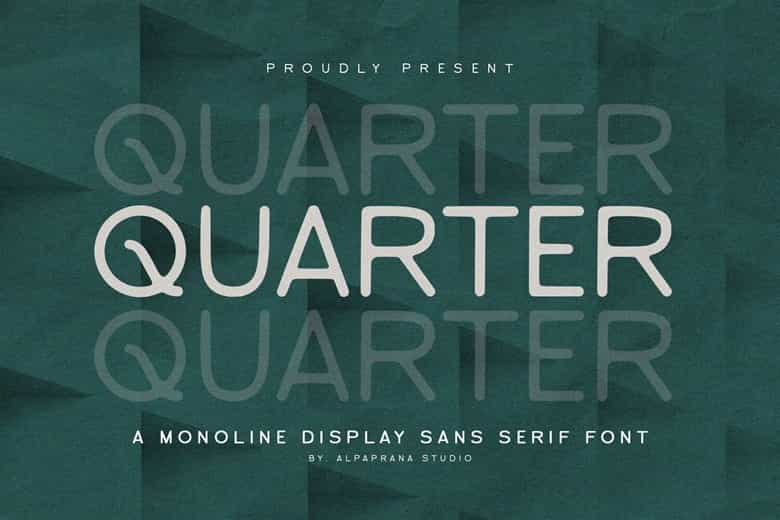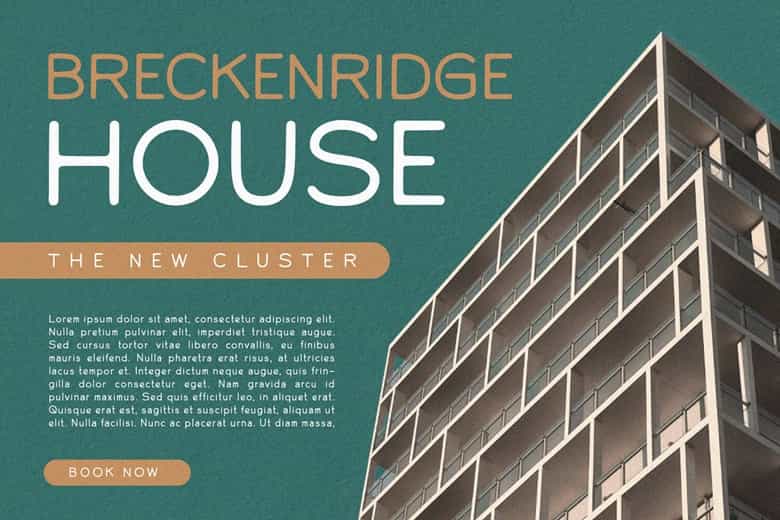
Discover Quarter Font, part of the Sans Serif Display Monoline collection—a versatile and unique font perfect for adding a personal touch to your projects. Download it for free and enjoy crafting designs with style, from invitations to social media posts. This font is available exclusively for personal use, giving you the freedom to create without limits. Unlock your creativity with Quarter Font today!
Quarter is a monoline display sans serif typeface with elegant and modern feels. It is going to be very useful for magazines, packaging, posters, shopping bags, t-shirts, book covers, photography, special events and other designing purposes.